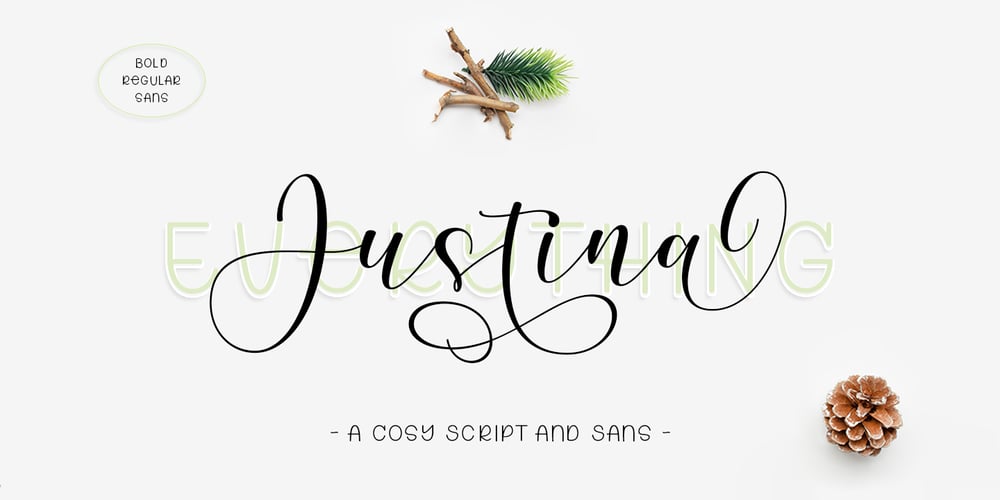
Justina Duo Font Family was designed by Muammar Kadafi and published by Attract Studio. Justina Duo contains 3 styles and family package options. Introducing the elegant Justina Font Duo. For those of you who need a touch of elegance and modernity to your designs, this font is made for you! Which you can use for various purposes. such as logos, product packaging, wedding invitations, branding, headlines, signage, labels, signatures, book covers, posters, quotes and more.If you need help or have any questions, let me know. I’m happy to help :)Thanks & Happy Designing!